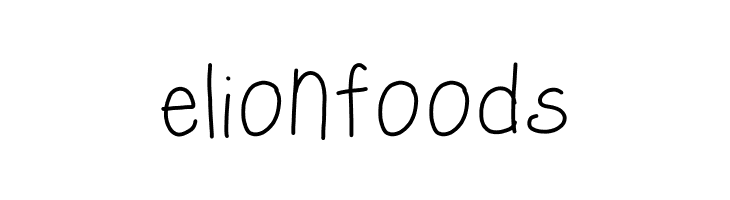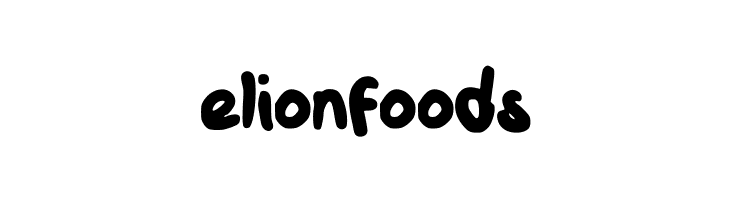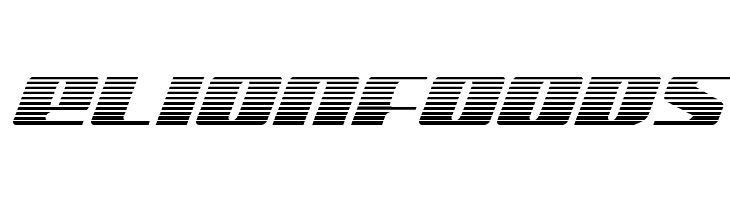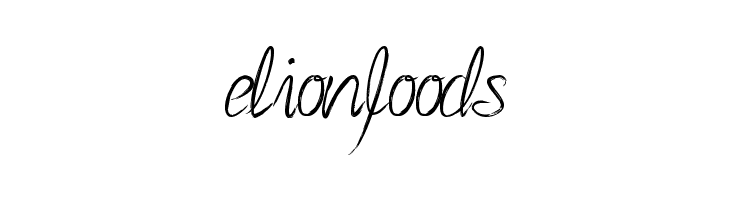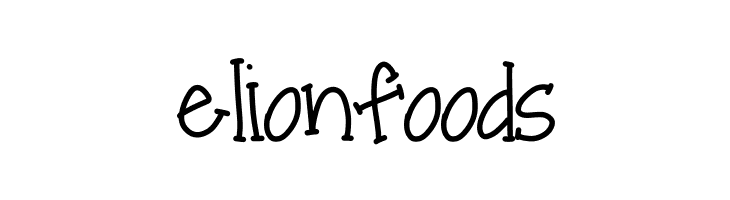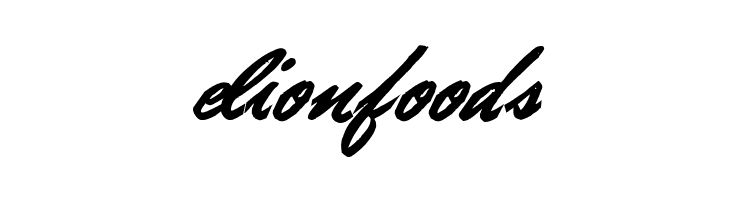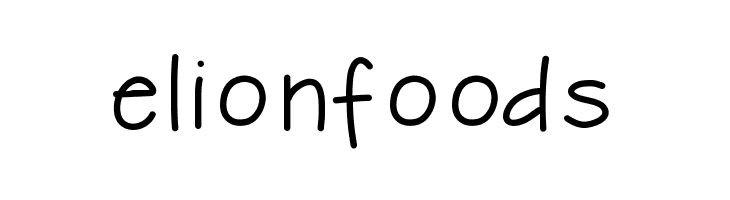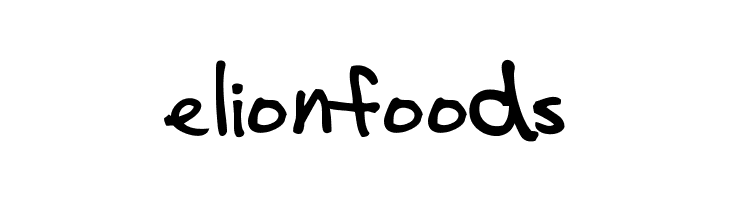
A playful, handwritten font with a whimsical and friendly style.
A playful, bold typeface with rounded, consistent strokes.
A bold, distressed decorative font with a rugged, grunge-like texture.
A playful, decorative font with wavy edges and a handcrafted feel.
A playful, outlined font with a hand-drawn, whimsical style.
A bold, playful script font with a handwritten style.
A playful, hand-drawn font with rounded characters and a friendly style.
A playful, rhythmic font with bold, rounded characters and a cursive-like flow.
A lively, cursive font with fluid, connected strokes and a personal touch.
A bold, rugged font with jagged edges, perfect for primitive or tribal-themed designs.
A bold, flowing script font with a playful and dynamic style.
A bold, decorative font with intricate geometric patterns and industrial flair.
A flowing, cursive font with elegant, connected letters and a slight right slant.
A bold, playful font with rounded characters and a whimsical flair.
A dynamic and flowing script font with elegant, cursive letterforms.
A bold, geometric font with futuristic cut-out details.
A bold, art deco-inspired font with dynamic, multi-line characters.
A decorative font with floral elements and artistic curves.
A playful, bold script font with a handwritten style and smooth, rounded characters.
A playful, handwritten font with a casual and whimsical style.
A playful, handwritten script font with connected letters and a bold presence.
A bold, dynamic script font with fluid, cursive letterforms and a sophisticated style.
A playful, handwritten font with a friendly and casual style.
A playful, sketchy font with a hand-drawn, textured appearance.
A playful, casual handwritten font with dynamic and irregular strokes.